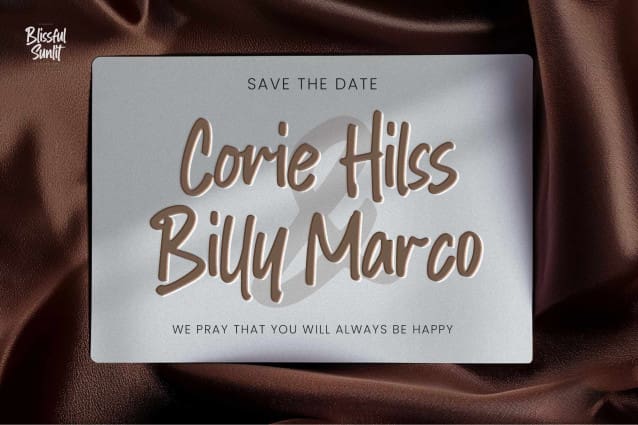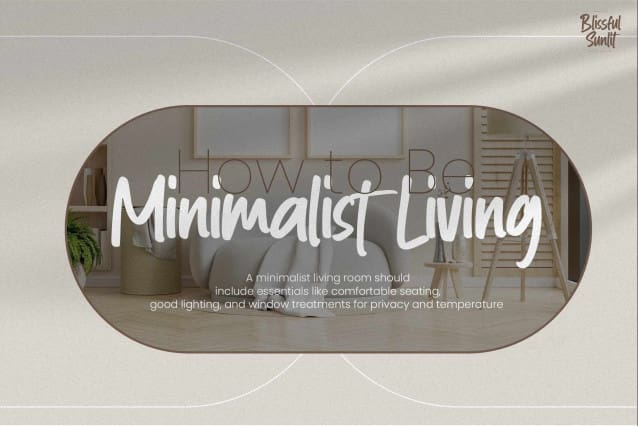
Blissful Sunlit Font
Blissful Sunlit Font – This Is Quick Brush Font.This is a Natural Style and classy style with a clear style and dramatic movement.
This font Blissful Sunlit is great for your next creative project such as logos, printed quotes, invitations, cards, product packaging, headers, Logotype, Letterhead, Poster, Design this font is great for your creative projects such as watermark on photography, and perfect for logos & branding, invitation,advertisements,product designs, stationery, wedding designs,label ,product packaging, special events or anything that need handwritting taste.
That is has charming, authentic and relaxed characteristic more natural look to your text.